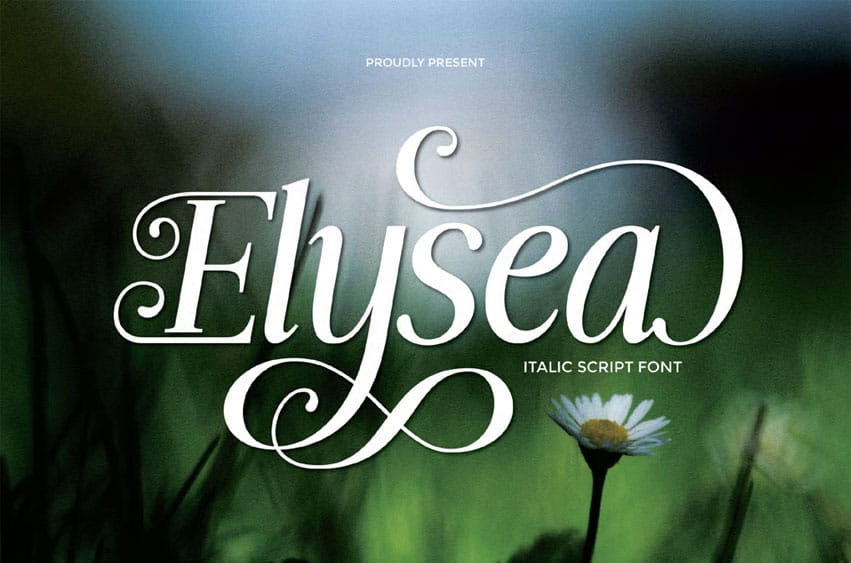
Elysea Font is an elegant serif font that captures the essence of grace and romance. With its flowing curves, delicate swashes, and high contrast strokes, Elysea is perfect for wedding invitations, luxury branding, beauty packaging, and any design that seeks a touch of sophistication and charm. The refined letterforms bring a timeless feel, making Elysea a perfect choice for both classic and contemporary styles.
- Uppercase alphabet A-Z
- Lowercase alphabet a-z
- Numbers 0-9
- Some punctuation
- Alternates & Ligatures